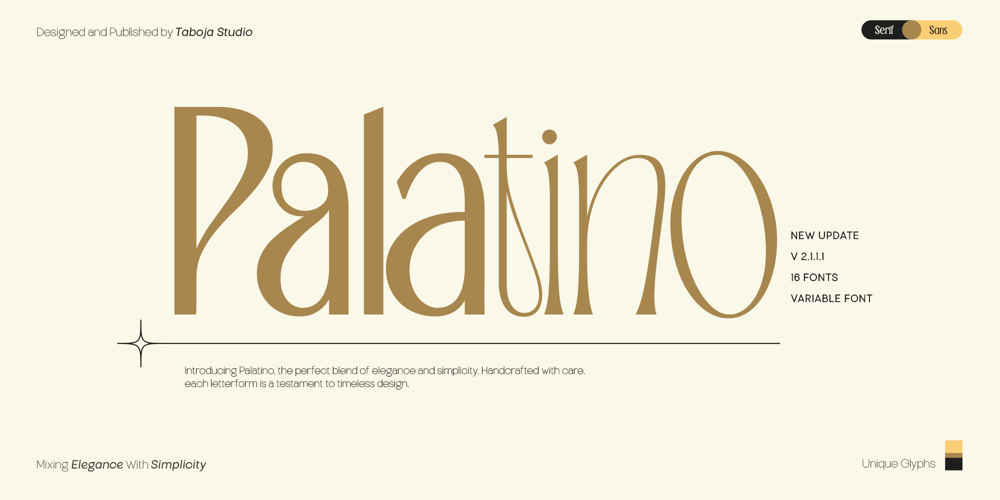
TBJ Palatino 2 Styles Font Family was designed by Yusilo Oktaprima Ardani and published by Taboja Studio. TBJ Palatino 2 Styles contains 16 styles and family package options. We have now updated TBJ Palatino into a family font, adding variable font capabilities to enhance its versatility. The updated TBJ Palatino features two distinct styles: serif display and sans serif display.Tired of the conventional market offerings, we wanted to create a fresh alternative by merging serif and sans serif display styles into one cohesive family. With TBJ Palatino, clients can customize the serif elements to suit their unique design needs, delivering a perfect balance of classic elegance and modern adaptabilityTBJ Palatino Sans & Serif Includes:- Sans Thin, Sans Extra Light, Sans Regular, Sans Medium, Sans Bold, Sans Extra Bold.- Serif Thin, Serif Extra Light, Serif Regular, Serif Medium, Serif Bold, Serif Extra Bold.- Uppercase and Lowercase- Numerals and Punctuation- 100 Various Alternates And Ligatures- Accented characters- Multilingual Support- Unicode PUA EncodedWe highly recommend using a program that supports OpenType features and Glyphs panels such as Adobe Illustrator, Adobe Photoshop CC, Adobe Indesign, or CorelDraw, so you can see and access all Glyph variations.While using this product, if you encounter any problem or spot something we may have missed, please don’t hesitate to drop us a message. We’d love to hear your feedbacks in order to further fine-tune our products.Stay creative and have a wonderful day.